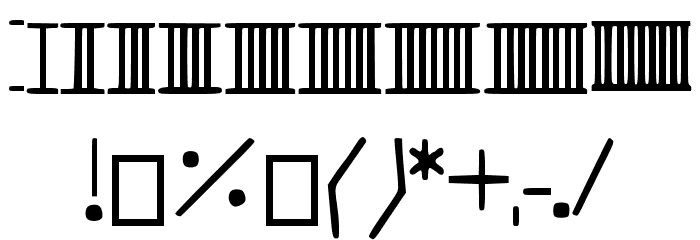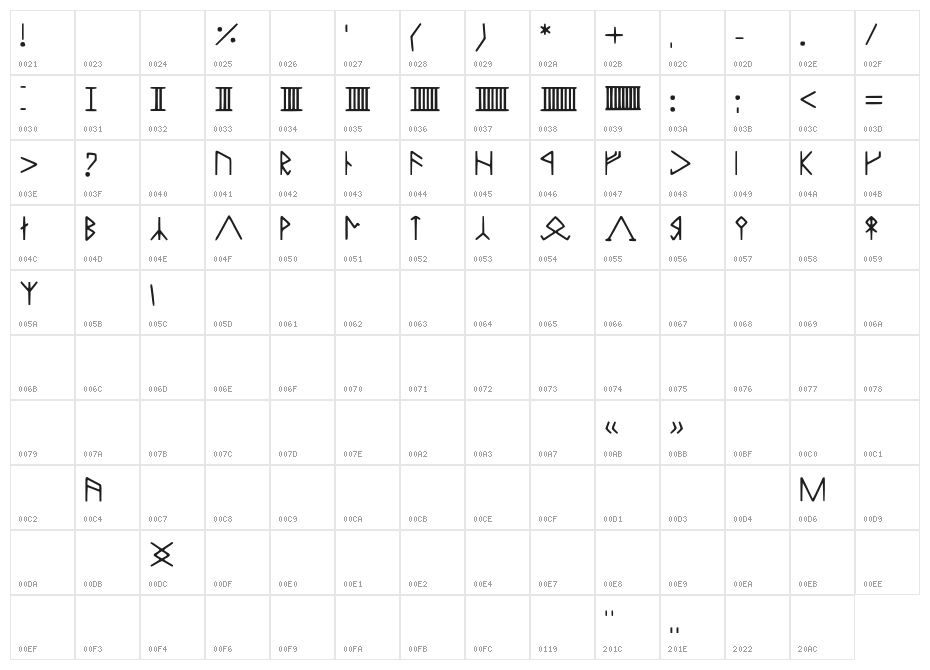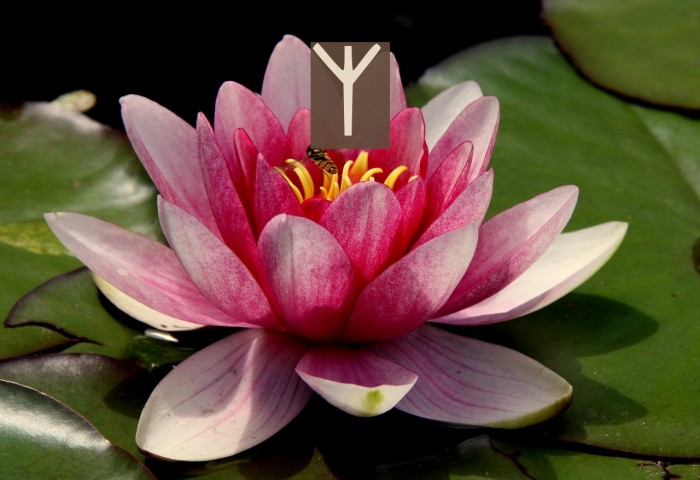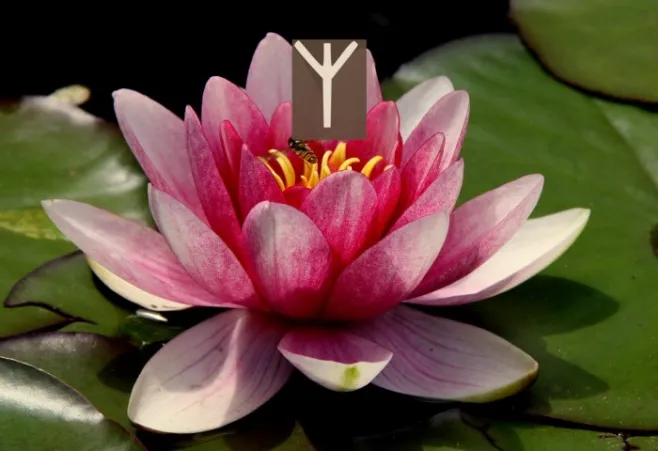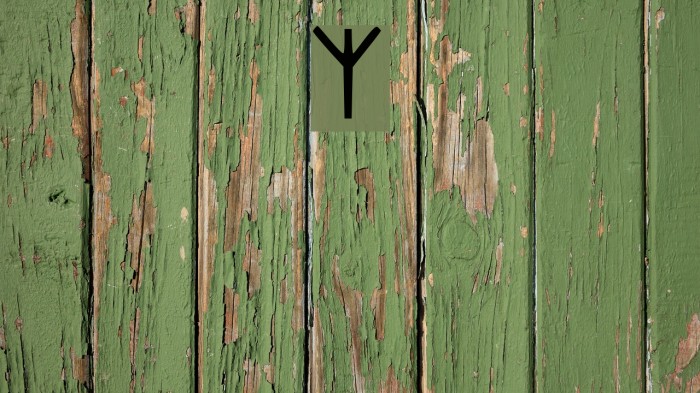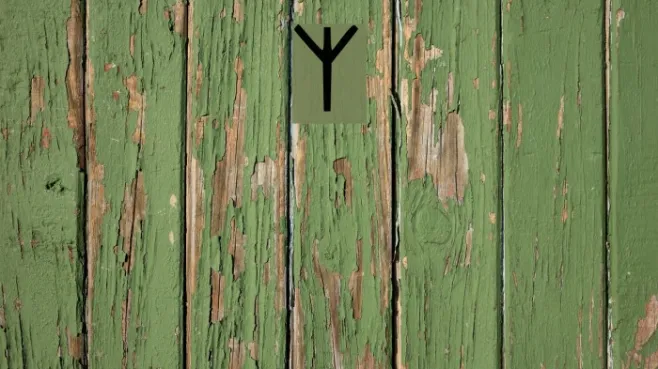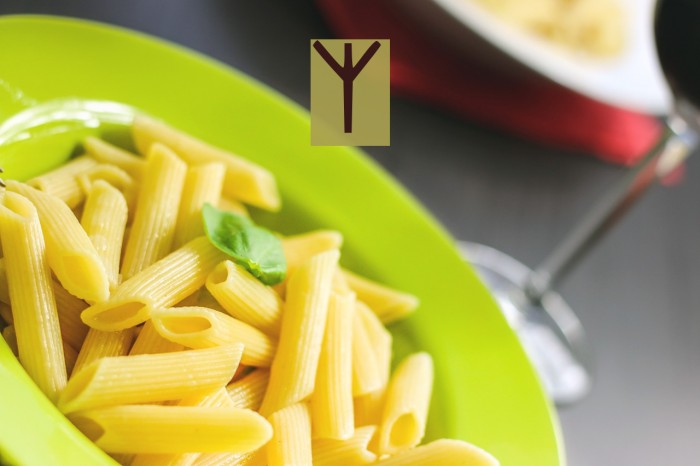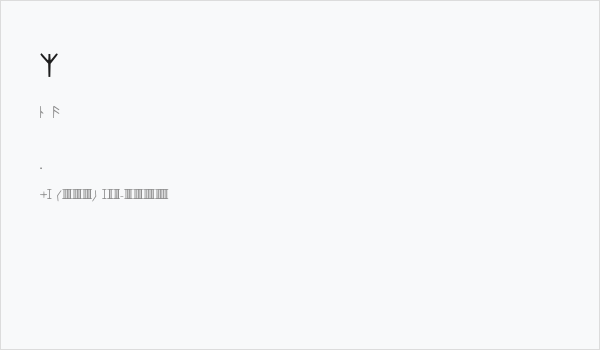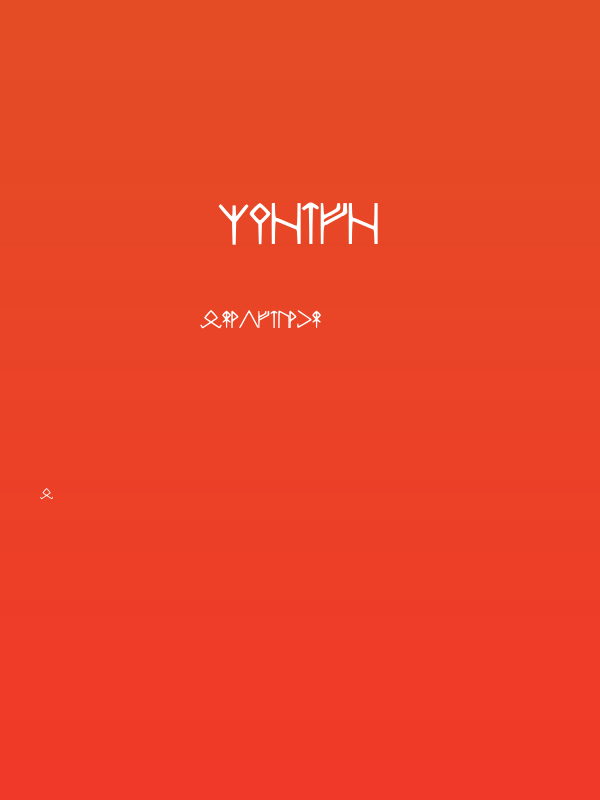
Zwerge Font
Zwerge Description
This font features a unique and ancient runic style, reminiscent of old Norse or Germanic inscriptions. The characters are angular and geometric, with a consistent stroke width that gives them a bold appearance. The uppercase letters are distinct and stylized, each with a unique form that suggests a historical or mystical theme. The numerals are represented by a series of vertical lines, adding to the archaic feel of the font. Special characters are included, maintaining the same angular and linear design. This font is perfect for projects that require a touch of ancient mystery or historical authenticity.
| Use Case | Logos, Headlines, Themed Designs |
| Proposed Projects | Ideal for fantasy book covers, historical documentaries, themed event posters, or video game design. |